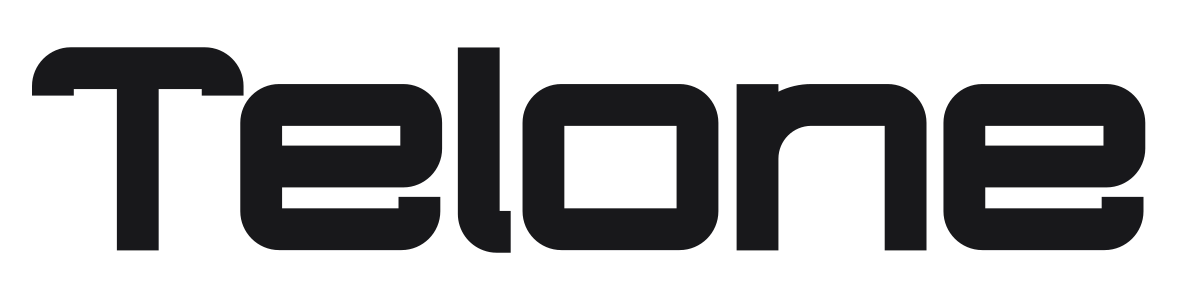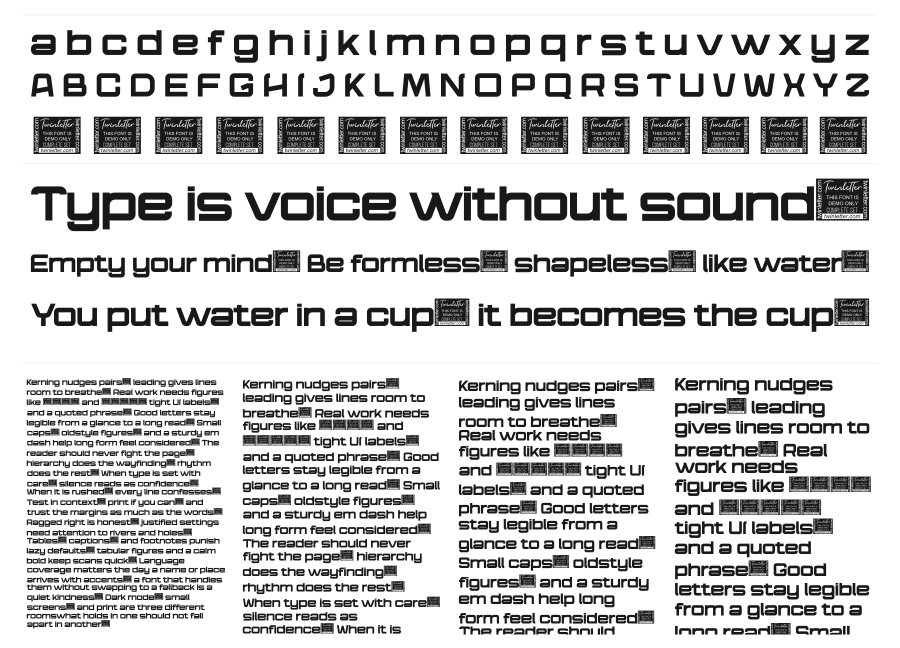
Telone
Telone is a bold geometric sans with wide proportions and subtly rounded corners that soften an otherwise industrial structure. The near-monoweight strokes and squared-off forms give it a confident, contemporary presence that reads clearly at headline sizes. It sits comfortably in the space between a strict grotesque and a rounded geometric, making it versatile for branding, packaging, and large-format display work.